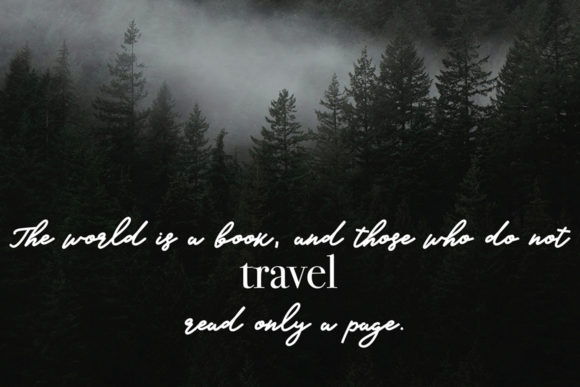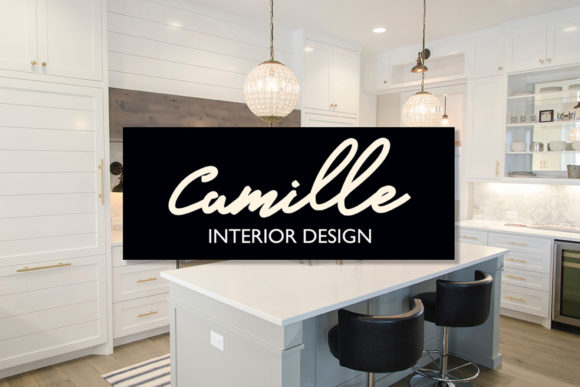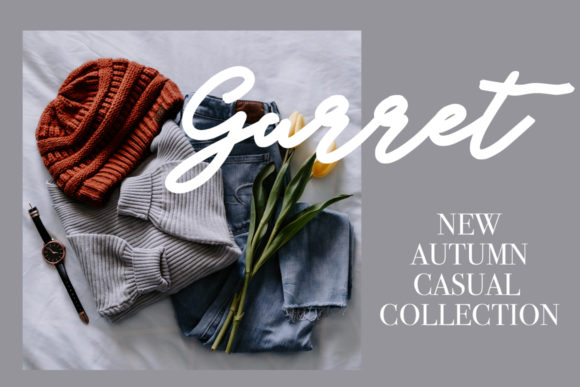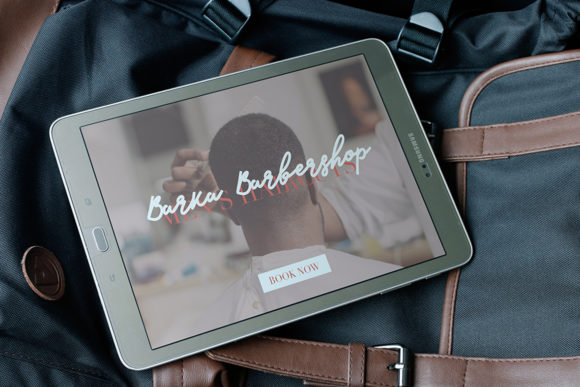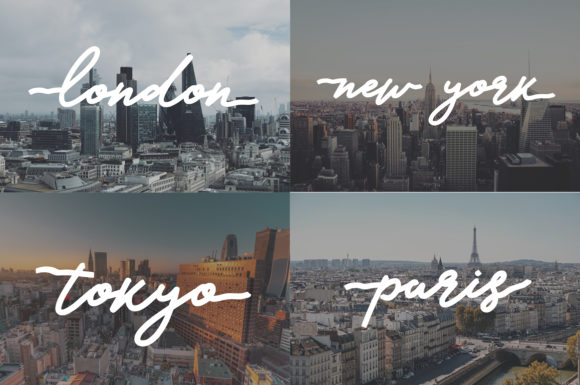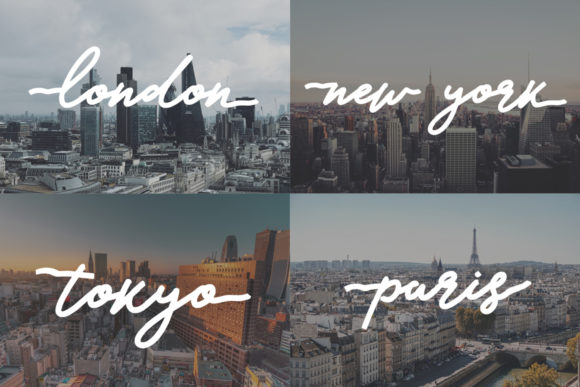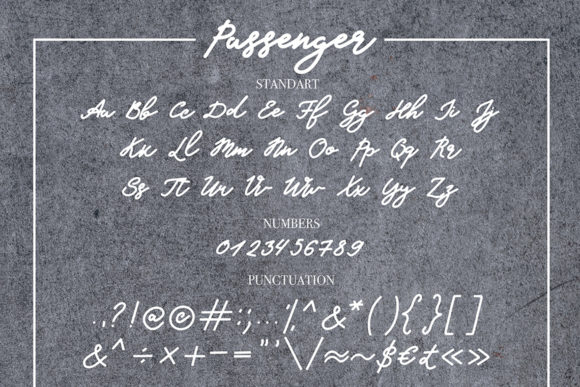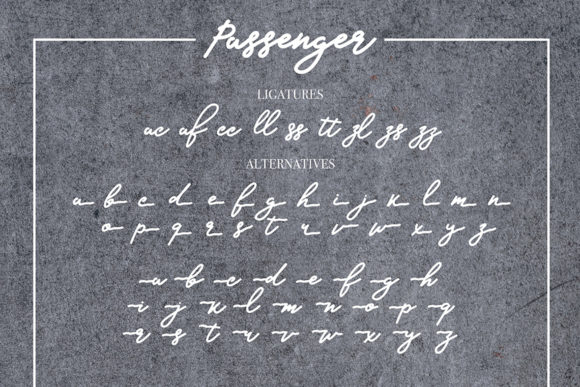
Passenger Font
About Passenger Font
Passenger is a stylish handwritten font with bold flowing characters. It is well-suited for a wide variety of projects!